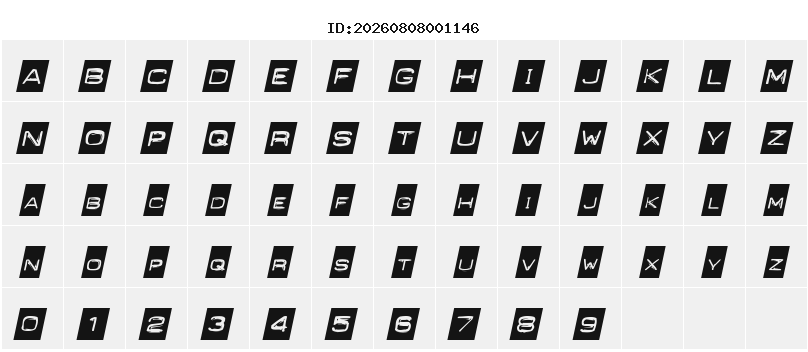
PunchLabelExtended Preview
• Font Name: PunchLabelExtended
• Font ID: SWFTE:PunchLabelExtended Italic
• Full Font Name: PunchLabelExtended Italic
• Version: Rev. 003.000
• PostScript Name: PunchLabelExtendedItalicSWFTE
• Character Count: 236
About PunchLabelExtended.ttf
PunchLabelExtended.ttf is a modern, elegant sans-serif font designed for ultimate readability and visual harmony. Perfect for branding, headlines, web design, and print materials.